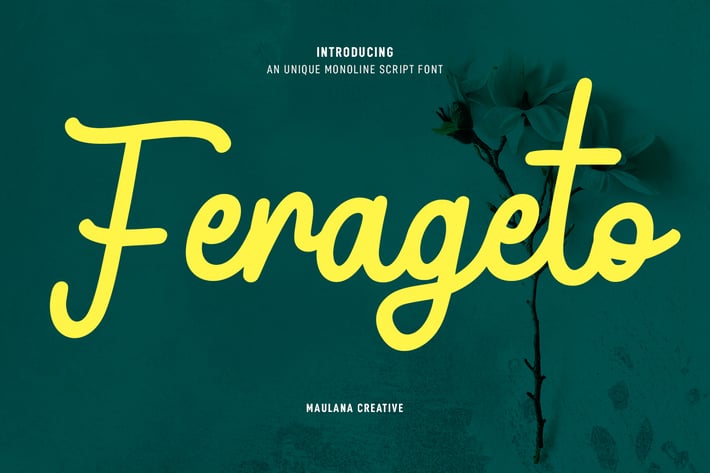
Ferageto Monoline Script Font
Ferageto is a casual modern script font. With monoline stroke, fun character with a bit of ligatures and alternates. To give you an extra creative work. Ferageto font support multilingual more than 100+ language. This font is good for logo design, Social media, Movie Titles, Books Titles, a short text even a long text letter and good for your secondary text font with sans or serif. Make a stunning work with Ferageto font.